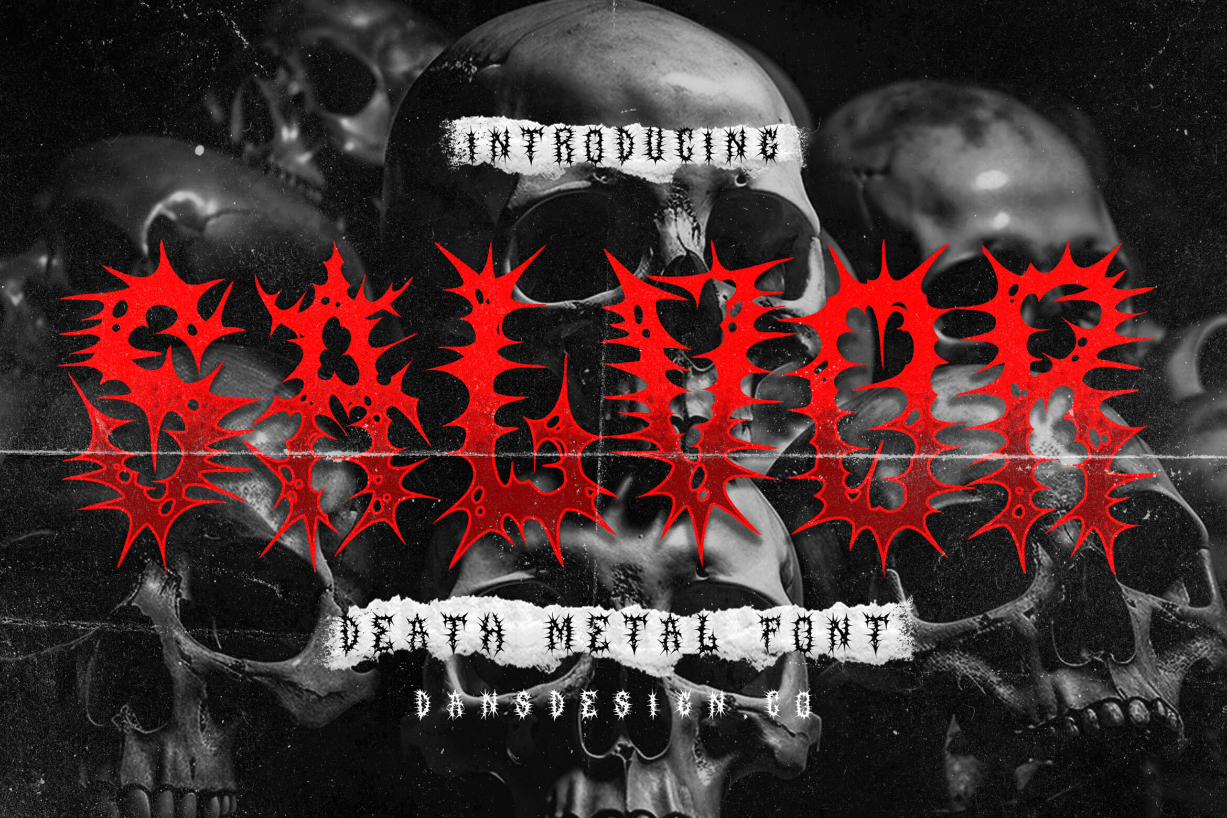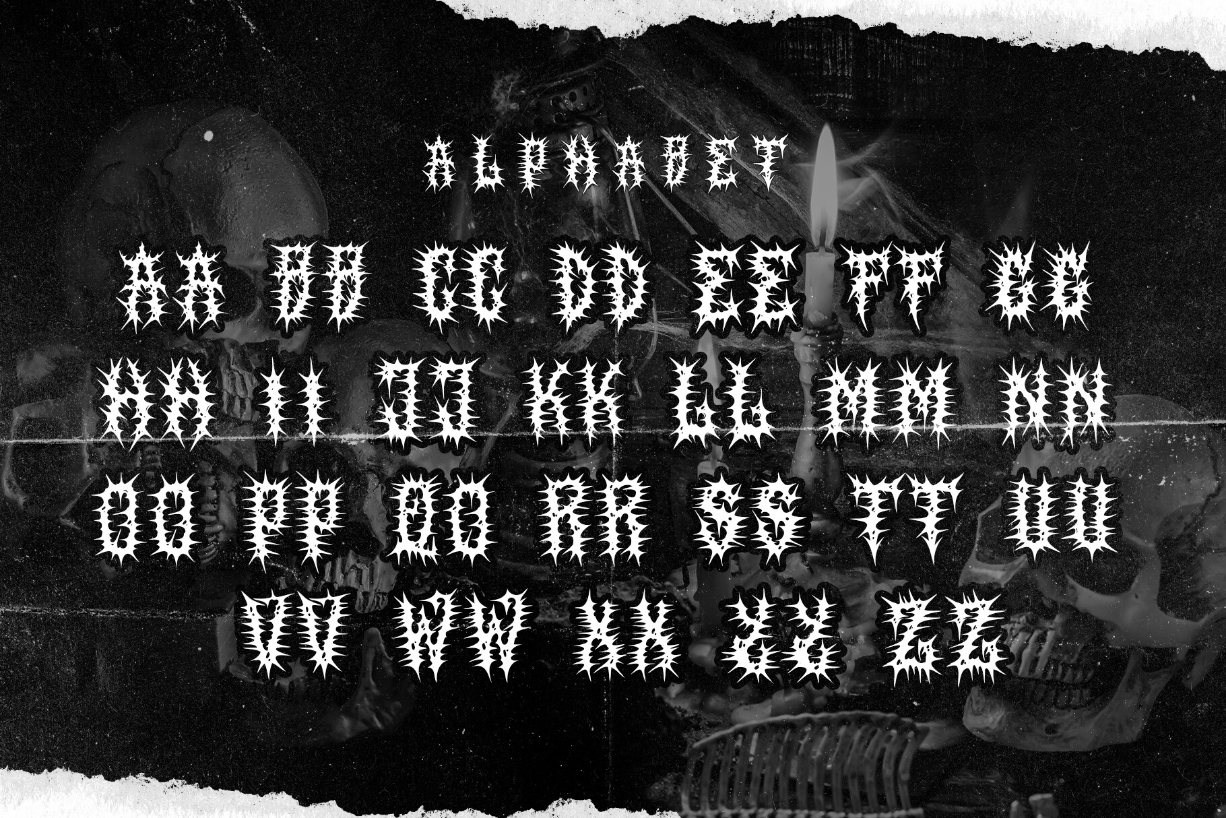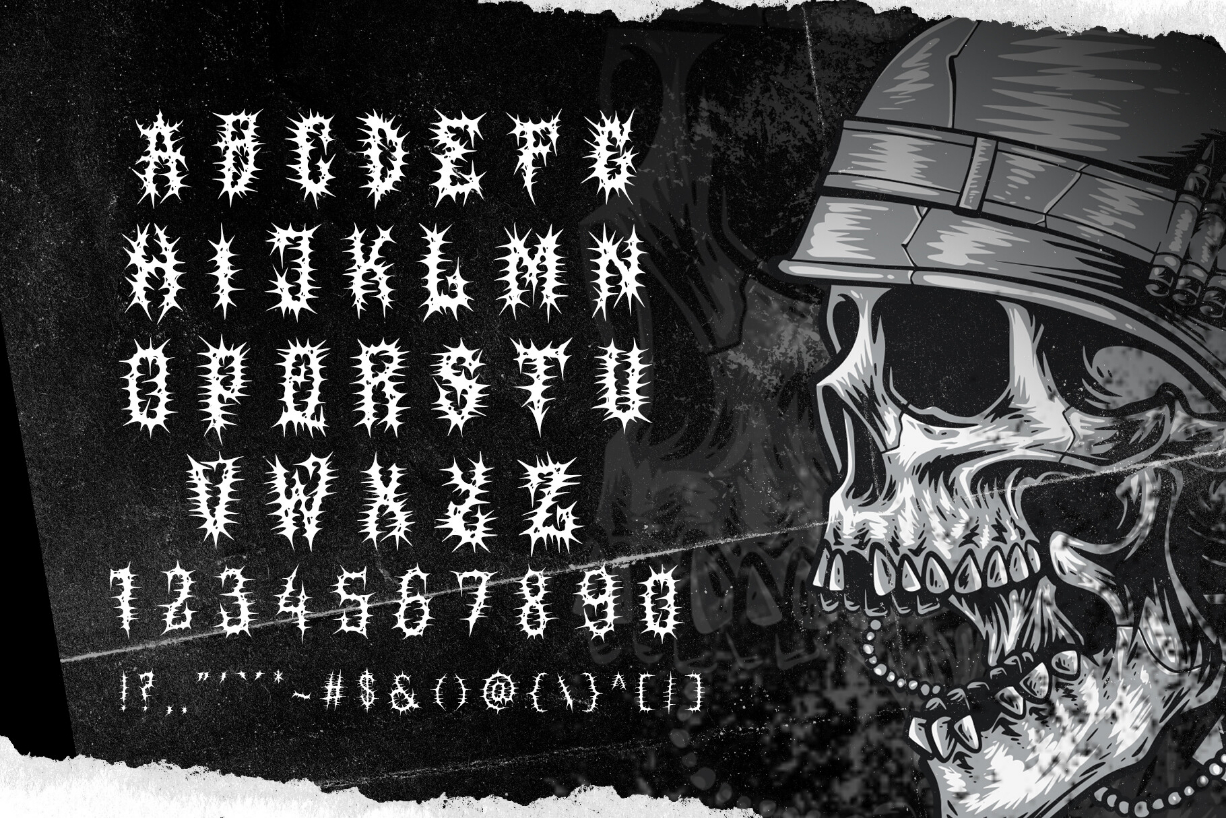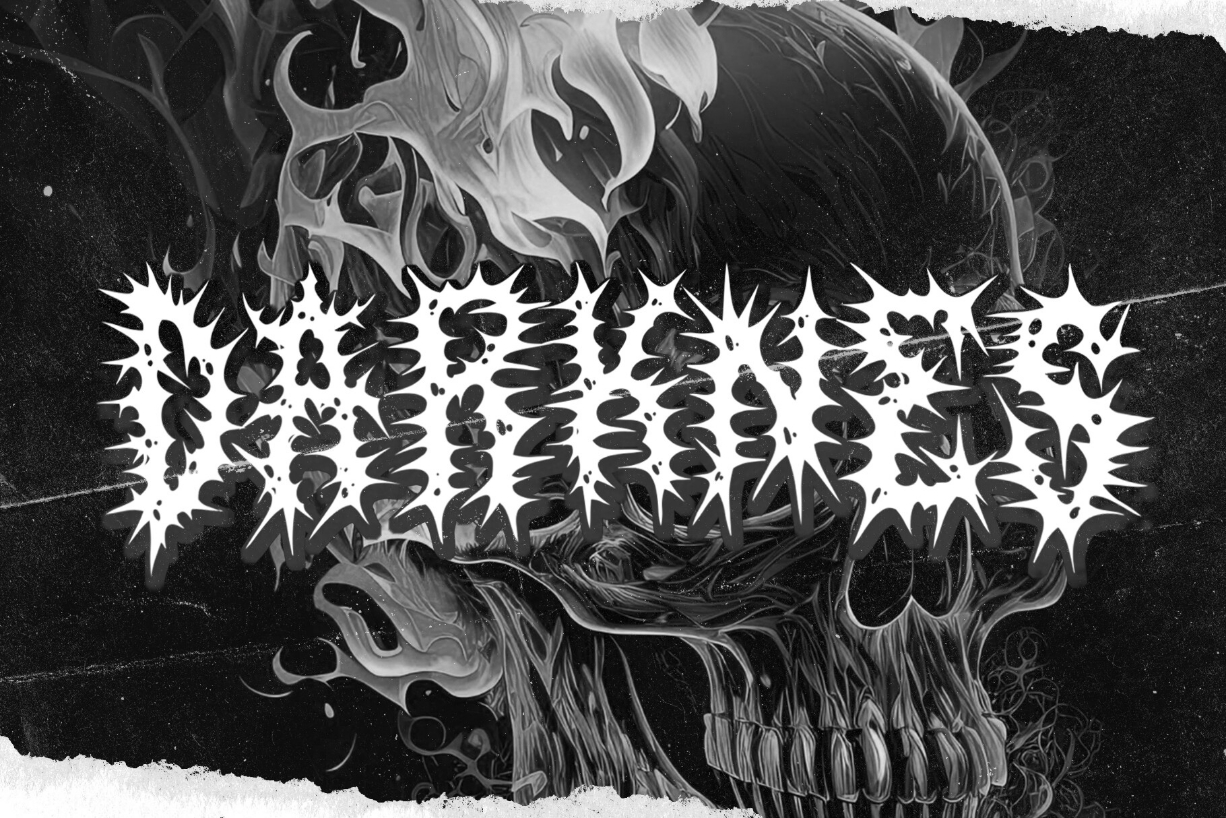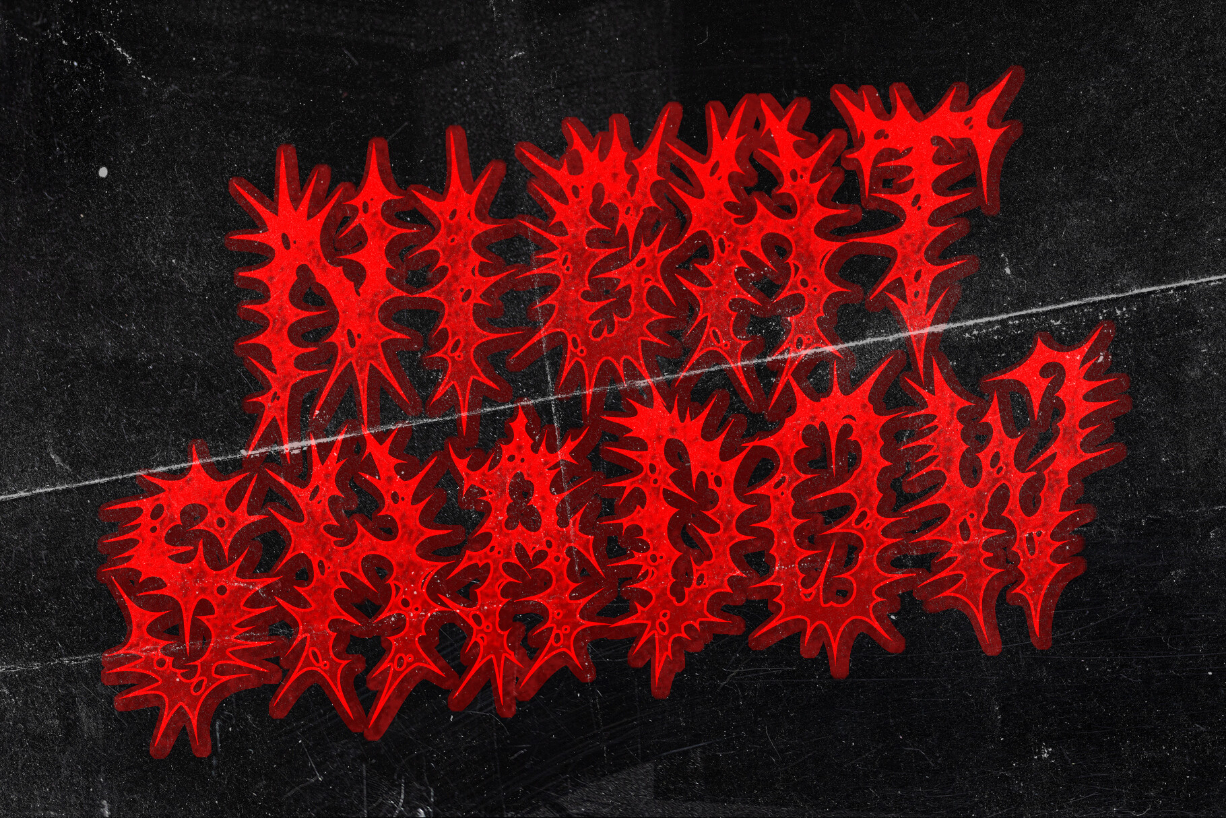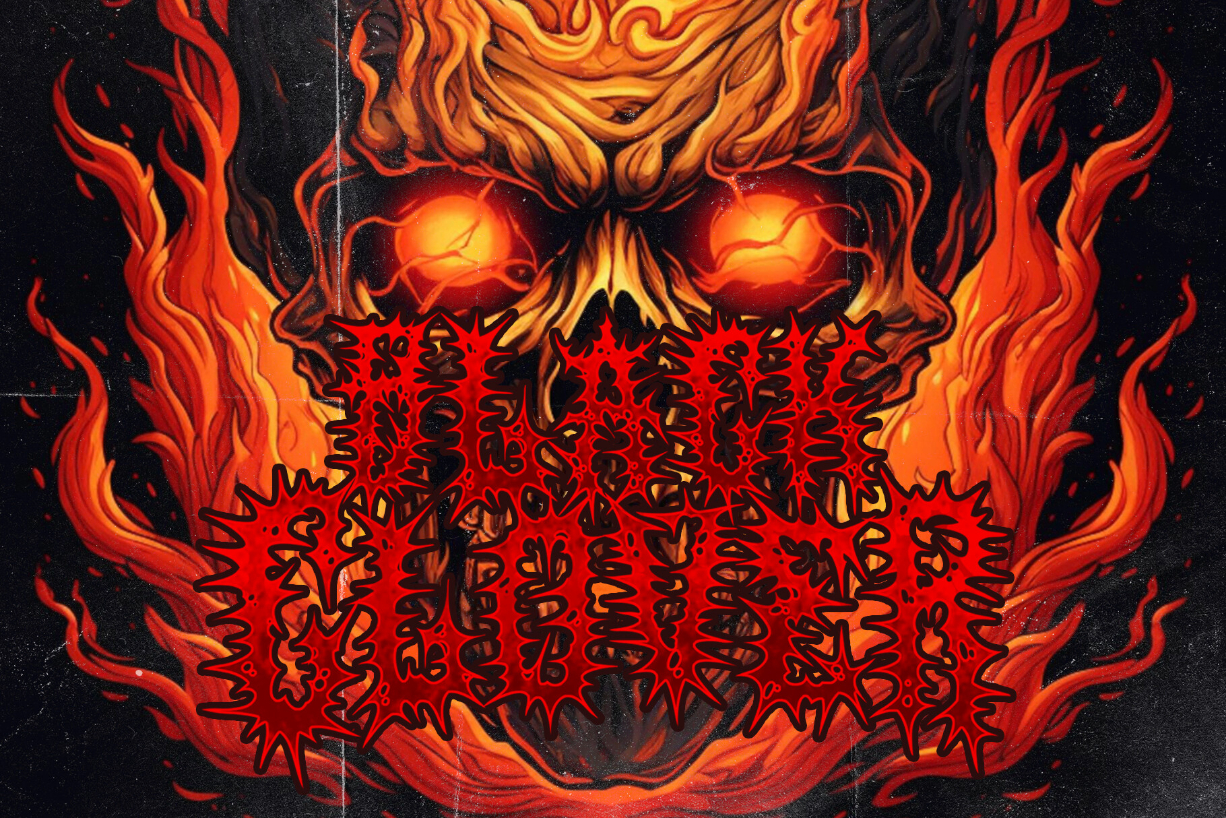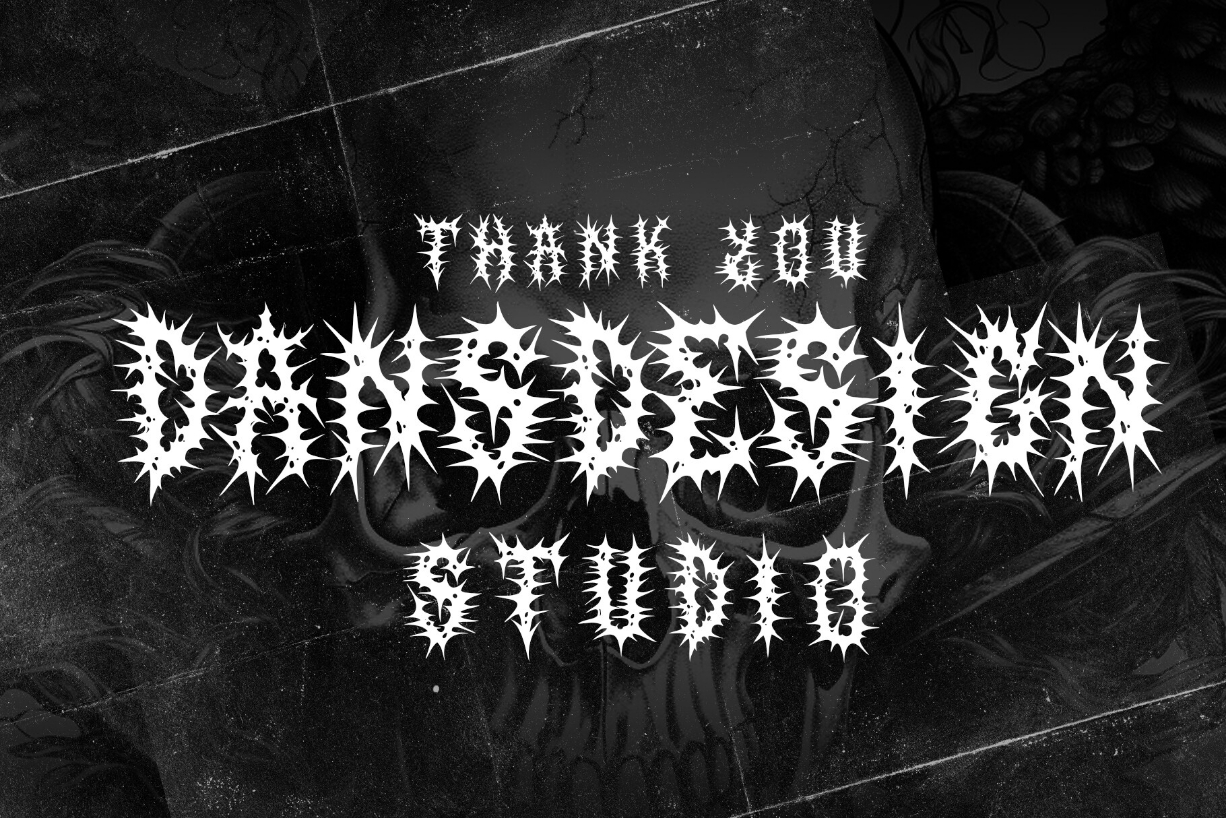
About Salvor Font
SALVOR Metal Horror Blackletter Font is a distinct, highly detailed, Horror Metal Font. It would make a great choice for exquisite Music, Posters, retro-urban designs, tattoo business branding, logos, vintage designs, and more.